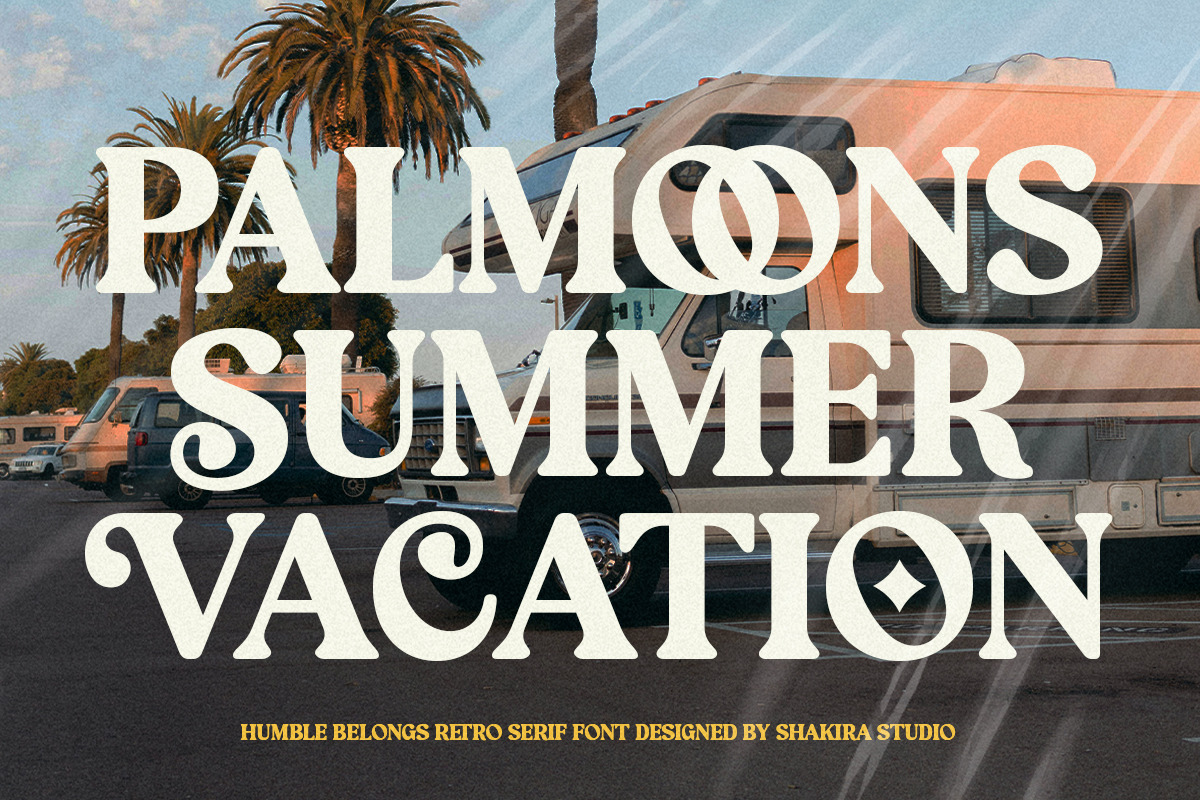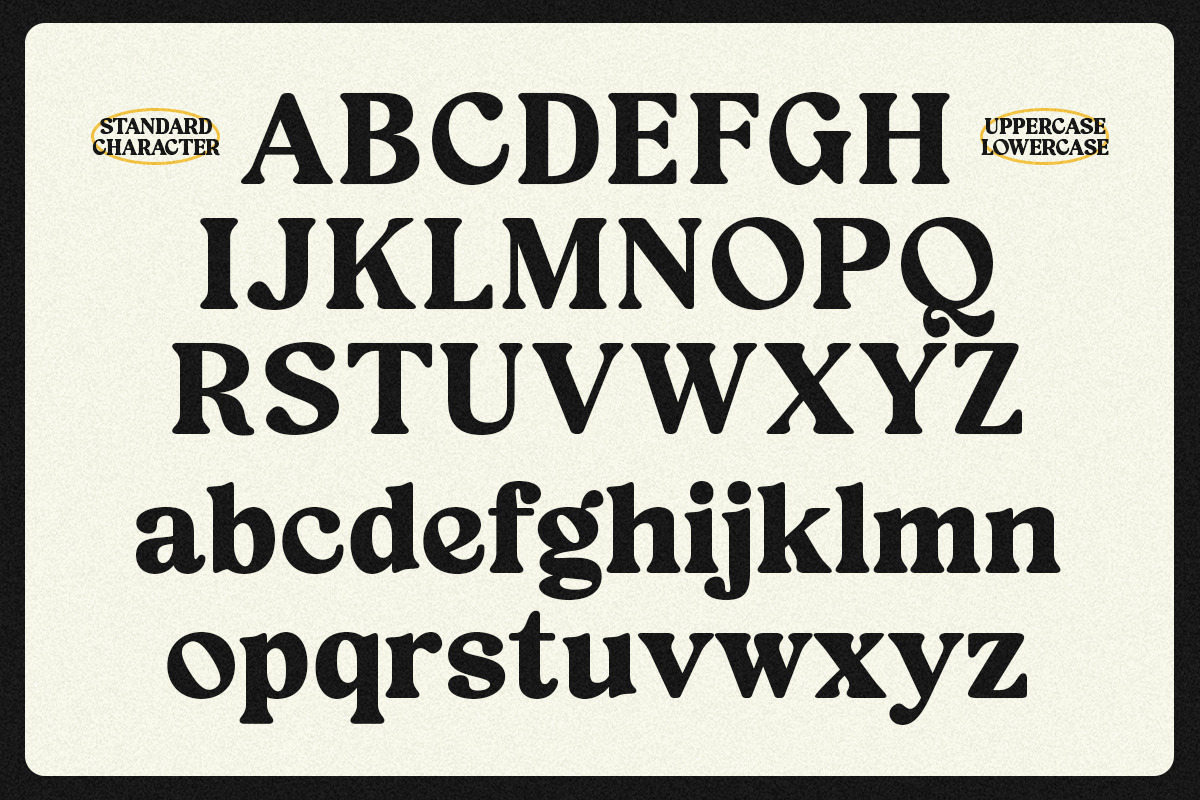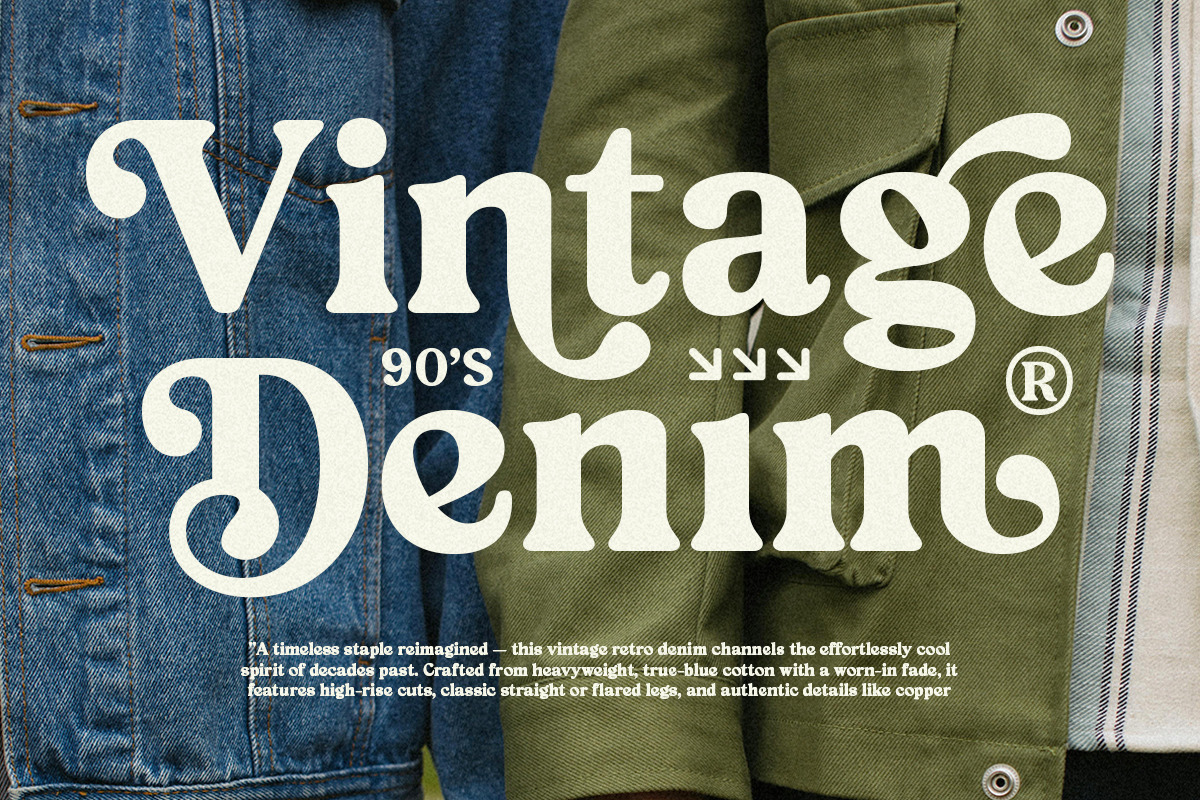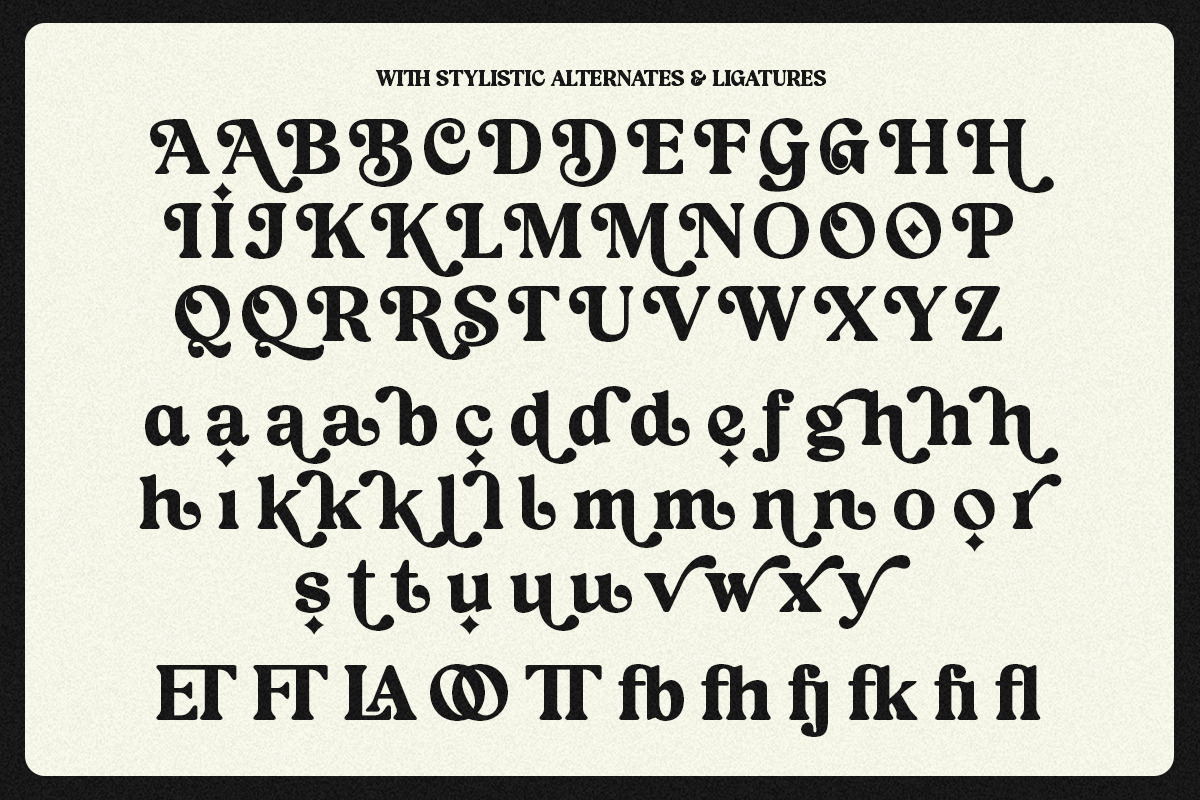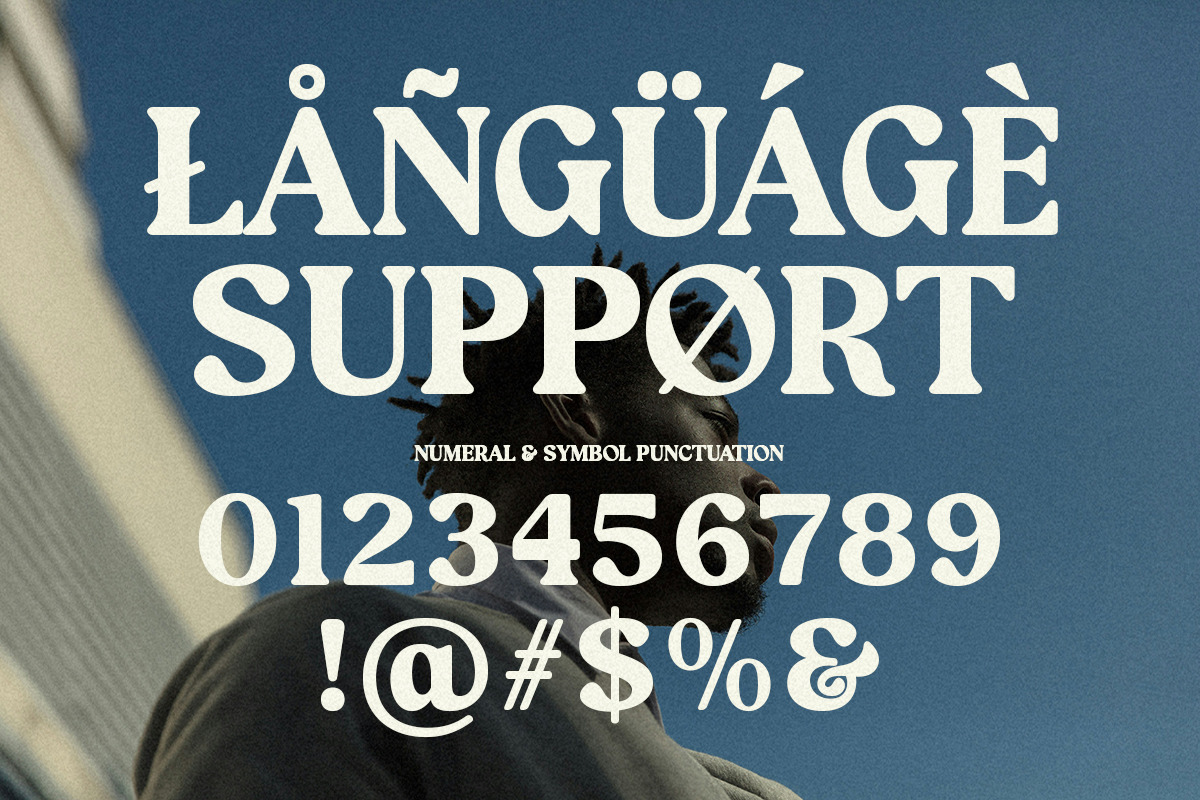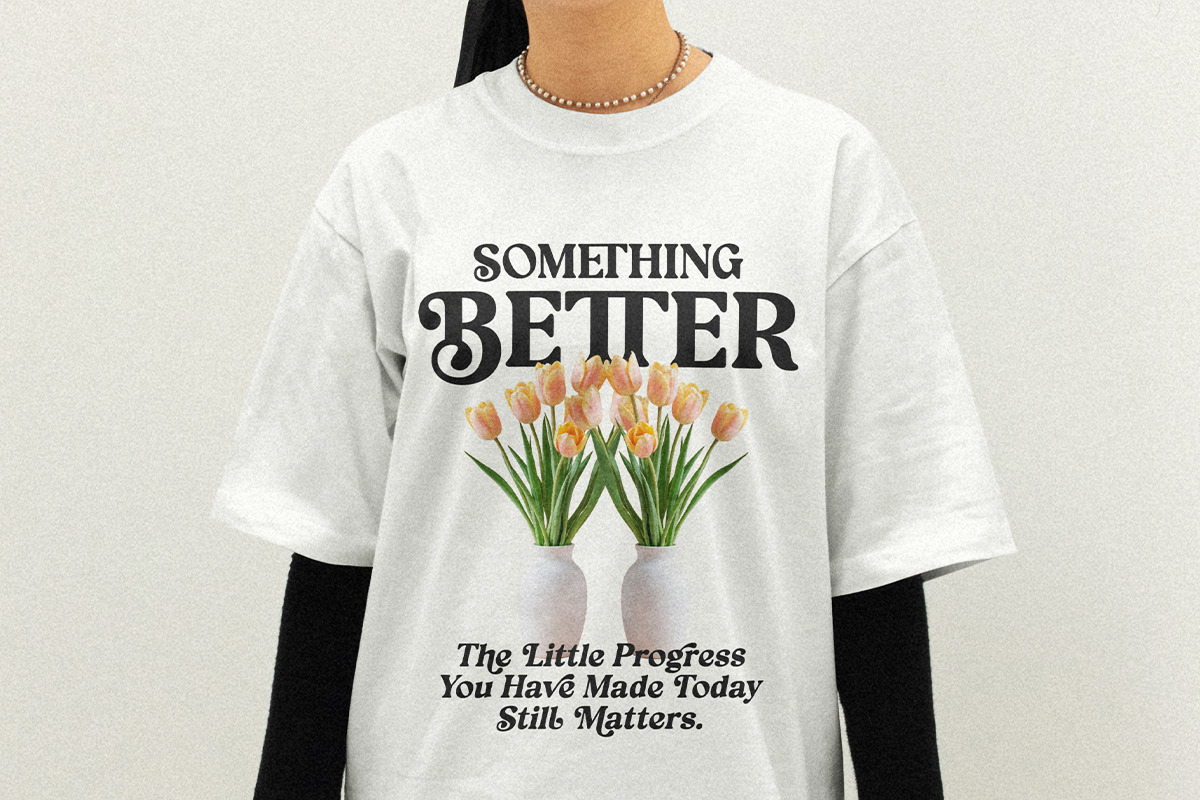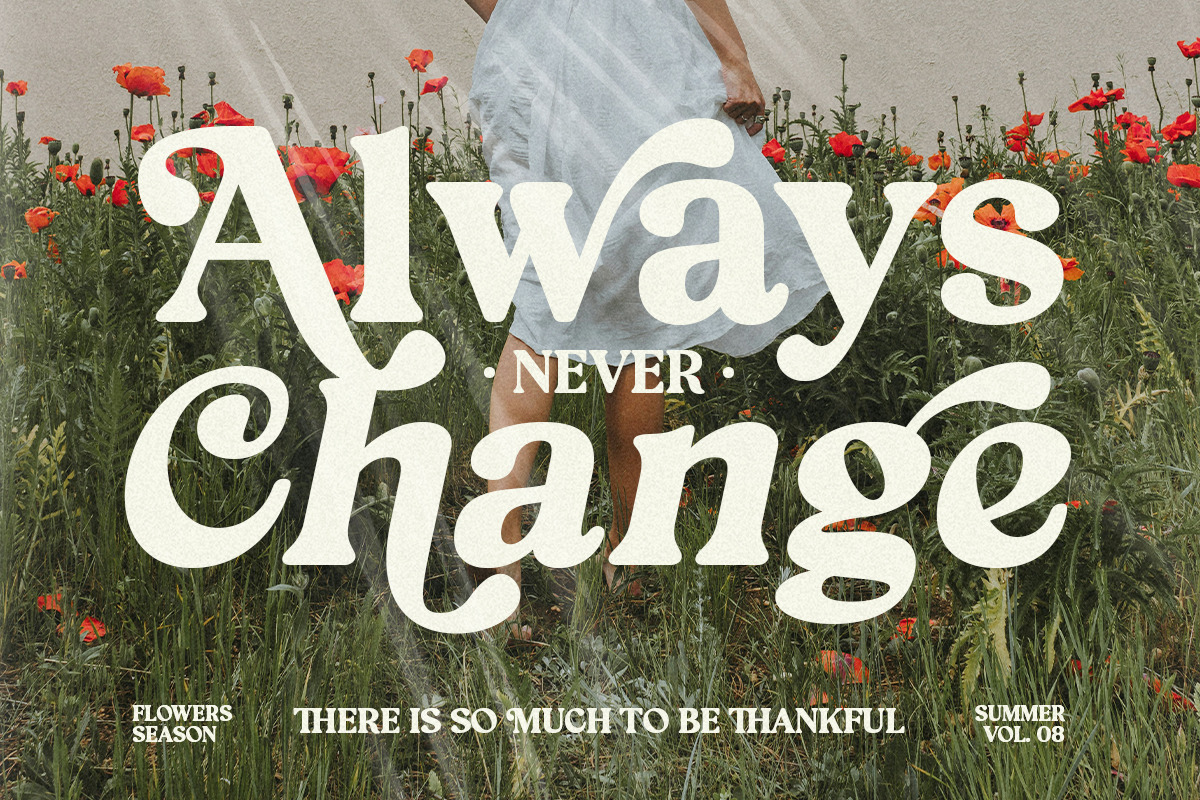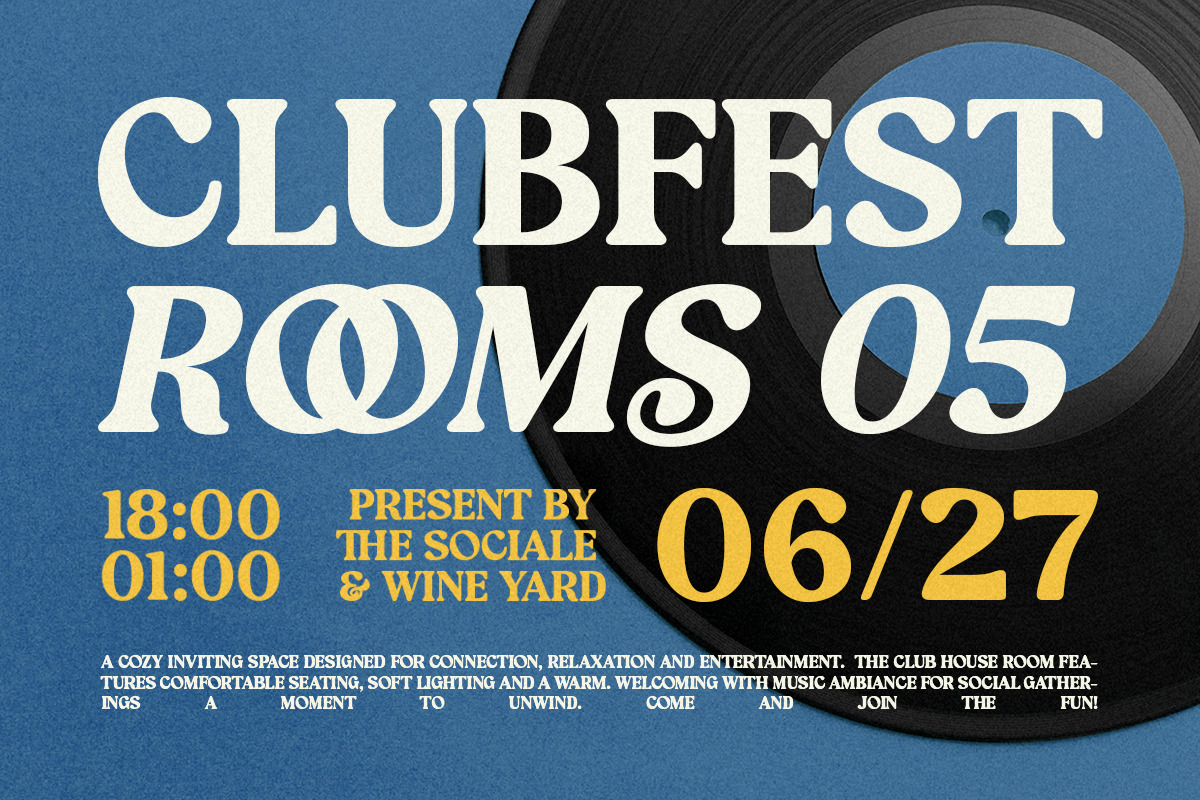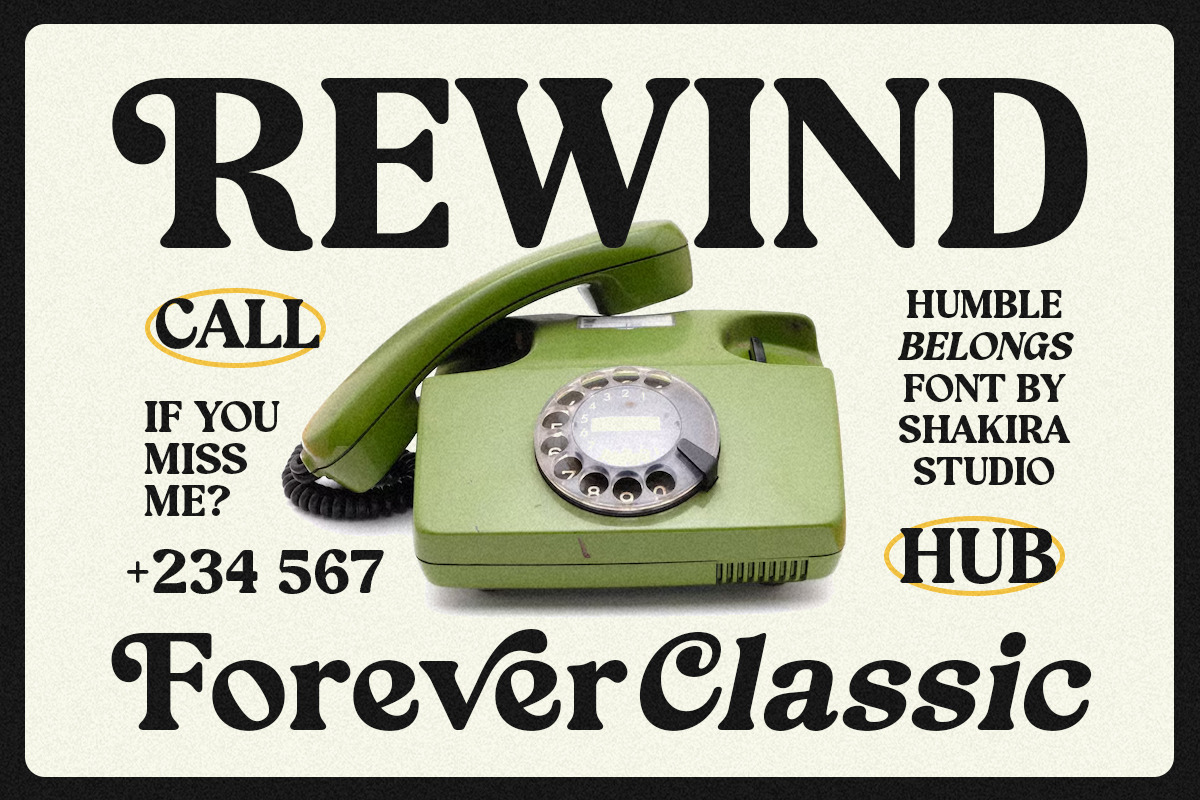
Humble Belongs - Retro Serif
Introducing Humble Belongs – a bold retro serif typeface infused with vintage personality and warm character.
Its smooth curves, soft edges, and chunky serifs bring back the essence of old-school charm with a contemporary twist. Humble Belongs is the perfect fusion of nostalgia and modern readability.
Designed to elevate visual storytelling with retro flair, this font is ideal for designs that need personality, authenticity, and standout display aesthetics.
From album covers to packaging and branding, it delivers a timeless groove with bold elegance.
- Alternates & stylistic ligatures
- Regular & italic styles
- Retro branding & logo design
- Music posters & cover art
- Editorial headlines & magazine layouts
- Vintage apparel & packaging
- Social media graphics
- Lifestyle & merchandise labels
Add a blast of nostalgia with Humble Belongs – where vintage rhythm meets modern style.